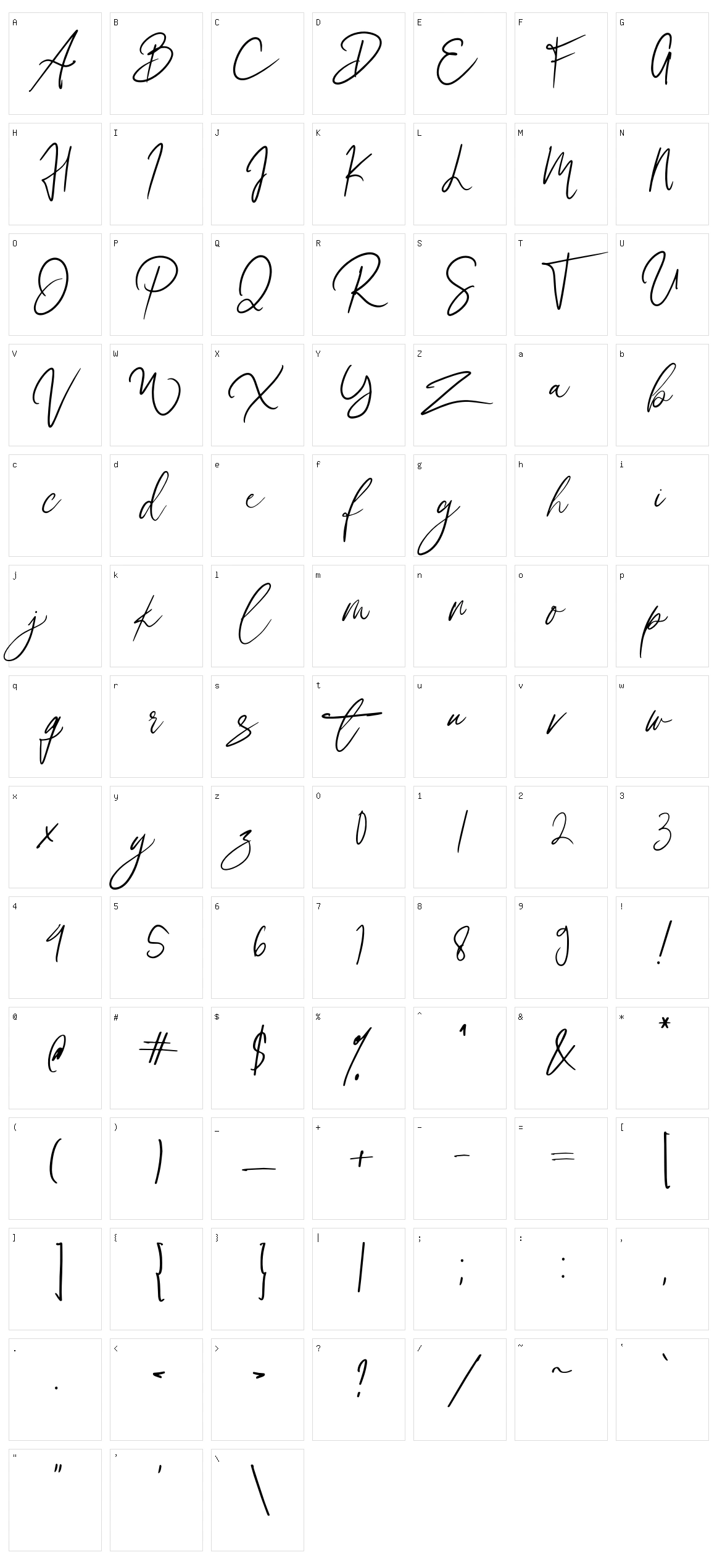
The free font Wolussy Beauty is carefully designed by The Ocean Studio - Laire Banyu Sandi Pawenang, showcasing a thoughtful balance of creativity and usability and falls under the Script font style. When you download the ZIP file, it contains only 153.97 KB of font files, making it lightweight and quick to download. Please review the license details below to understand permitted usage and distribution rights. If license information is not available, we recommend using this font for personal projects only or contacting the author directly for commercial usage permissions.